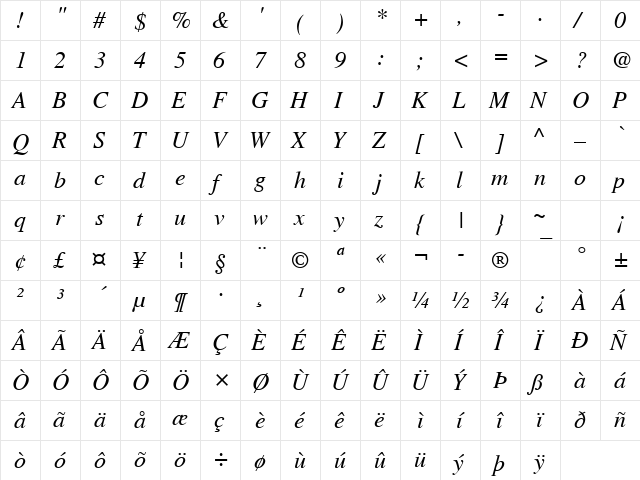
NimbusRomNo9L Italic
Design Context for NimbusRomNo9L Typeface
NimbusRomNo9L offers clean, dependable letterforms without strong stylistic allegiance, making it a practical choice for designers who need flexibility. The slanted form adds forward momentum and visual energy.
Pro Tip: Use NimbusRomNo9L for emphasis, pull quotes, and subheadings where its slanted energy can add rhythm to the layout.